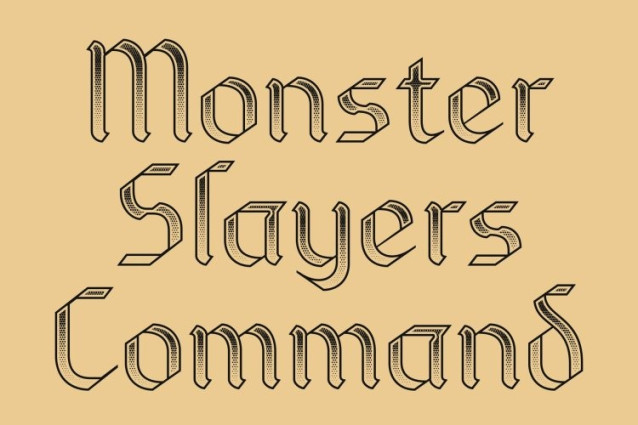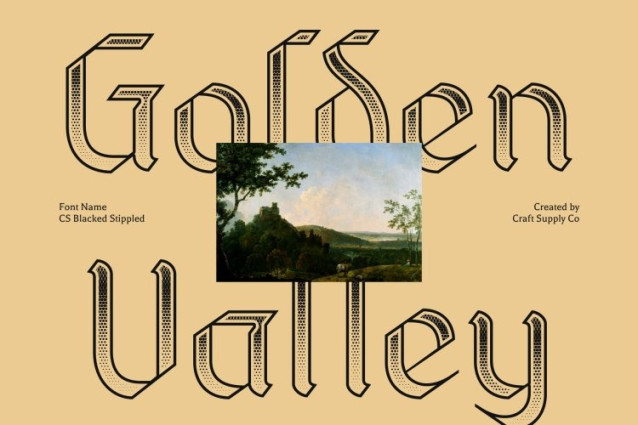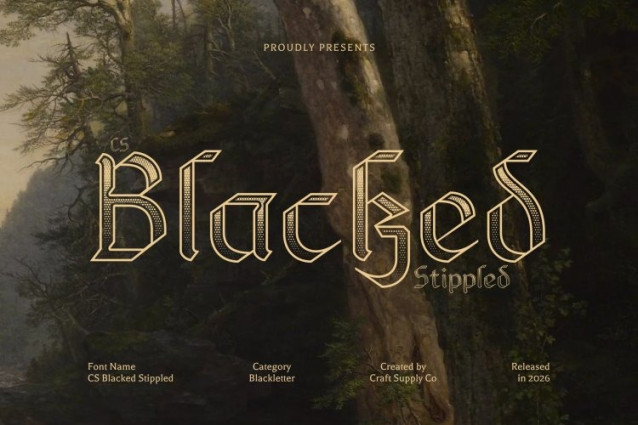
CS Blacked Stippled Font
CS Blacked Stippled Font – This is a striking display serif typeface that embraces the timeless elegance of traditional Blackletter design. Known for its sharp angles, intricate strokes, and dramatic structure, this font evokes a strong sense of history and classic craftsmanship. Its bold Gothic character creates a refined yet powerful impression, making it ideal for projects that demand authority, sophistication, and historical depth.
Strong and Authoritative Visual Presence
With its bold and commanding letterforms, delivers a powerful typographic voice. The ornate shapes and dramatic contrasts emphasize grandeur and prestige, allowing the font to stand out prominently in high-impact applications. Whether used for luxury branding, formal invitations, or statement headlines, it conveys strength, elegance, and timeless authority.
Distinctive Stippled Texture for Artistic Depth
The stippled effect introduces a dense dotted texture inspired by traditional stippling and ink-dot illustration techniques. This dotwork treatment adds visual richness and handcrafted character to the classic Blackletter forms, enhancing their dramatic presence with subtle texture and artistic depth. The result is a font that feels both historic and expressive, with a distinctive vintage engraving aesthetic.
Ideal for Historical, Gothic, and Luxury Designs
This is perfectly suited for prestigious branding, gothic-themed visuals, vintage posters, and elegant editorial compositions. Its blend of classic Blackletter structure and textured stippled detail creates a captivating typographic style that communicates heritage, luxury, and artistic sophistication.